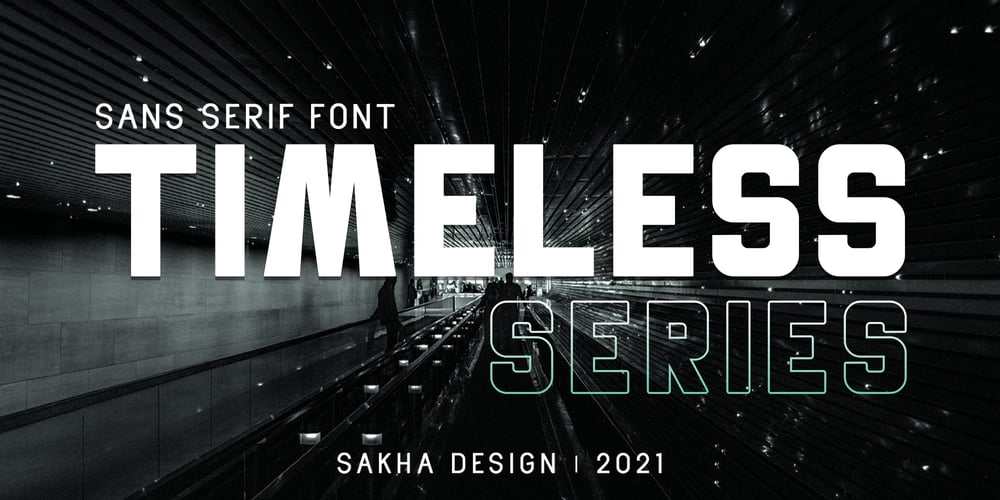
Timeless Series Font Family was designed by Alif Ryan Zulfikar and published by Sakha Design. Timeless Series contains 2 styles and family package options. Timeless Series is a cool, bold and thick lettered display font. No matter the topic, this font will be an incredible asset to your fonts’ library, as it has the potential to elevate any creation.